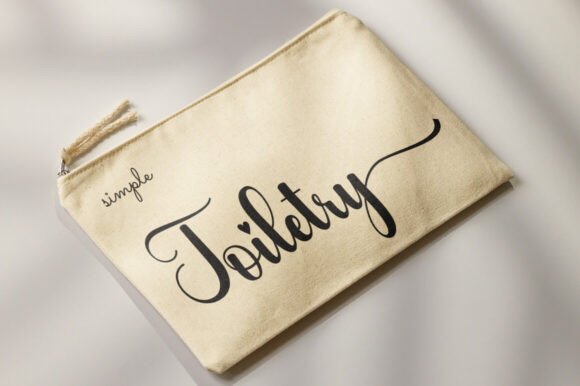
Mama Font
Mama is a charming handwritten font designed to add a touch of warmth and personality to your creative projects. With its unique and creative style, this font is perfect for a variety of themes such as craft projects, greeting cards, decorations, craft lettering, embroidery, and festive occasions such as Christmas, holidays, and Thanksgiving. The carefully crafted Home strokes bring an artistic feel to your designs, making them stand out and evoking a sense of handmade authenticity.
Enhance your DIY projects and creative endeavors with the delightful Mama font style. Its versatile nature makes it an ideal choice for expressing creativity and personalization in your crafts. Enhance your designs with its artistic charm, creating a memorable and heartfelt experience for your audience.